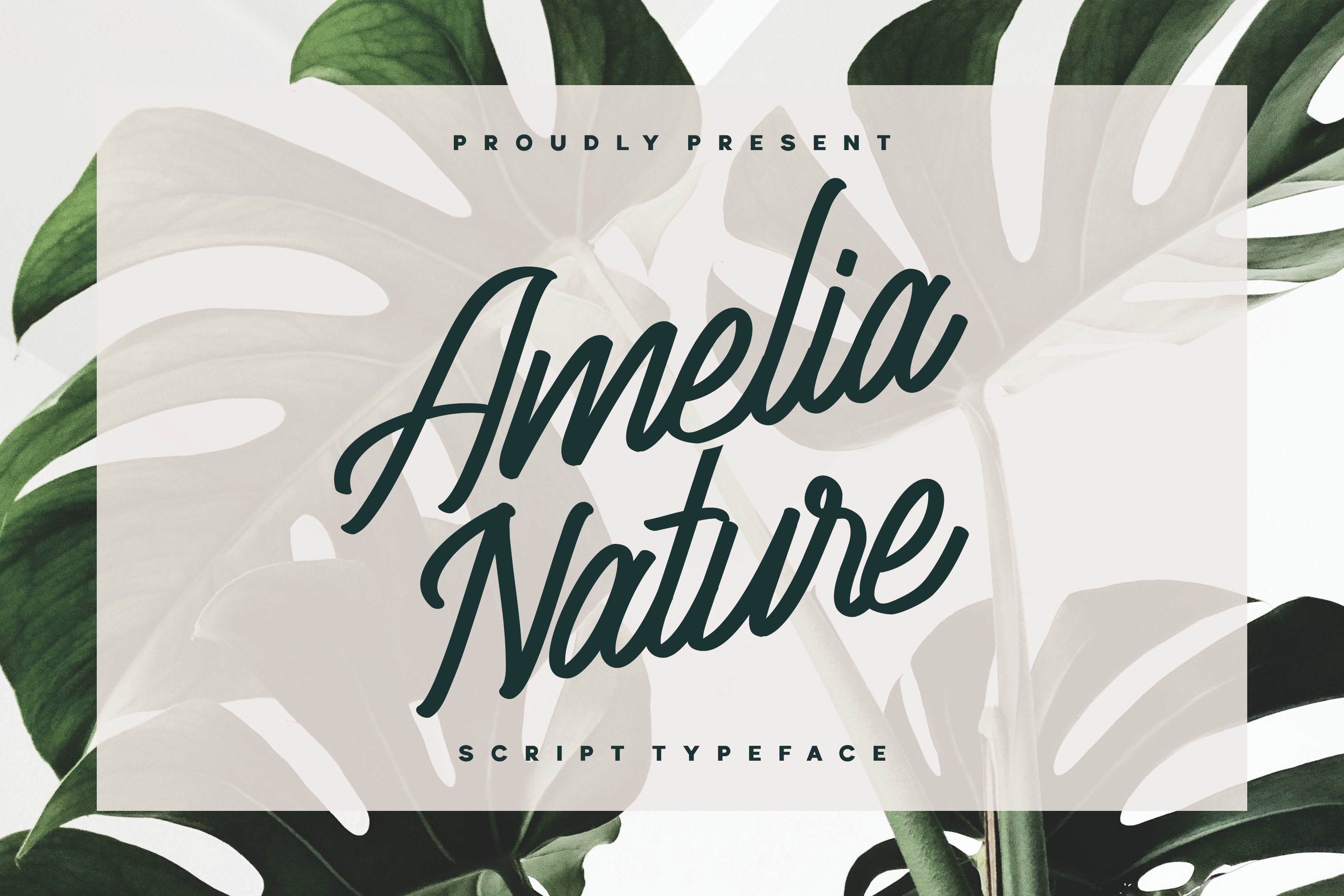
Amelia Nature is a stunning script font and easy to read, Make your best designs with an authentic look. Can be used for various purposes such as headings, logos, wedding invitation, t-shirt, giving card, label, instagram post, posters, and etc.